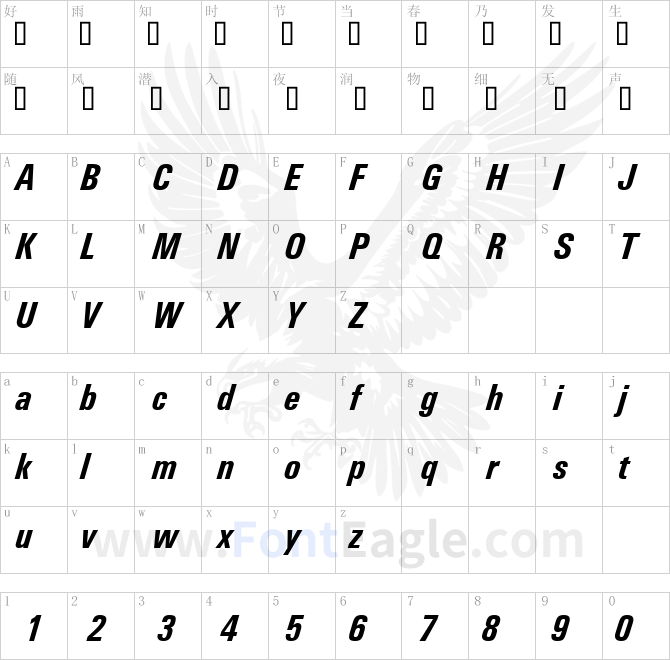
Univers Condensed Gras Italique.ttf Base Font Information
- Font name:Univers Condensed
- Font Subfamily:Gras Italique
- Font Subfamily ID:Hewlett-Packard: Univers Condensed Bold Italic: Version 1.3 (Hewlett-Packard)
- Font Full Name:Univers Condensed Gras Italique
- Font Version:Version 1.3 (Hewlett-Packard)
- Postscript:Univers-Condensed-BoldItalic
Univers Condensed Gras Italique.ttf Characters Sample